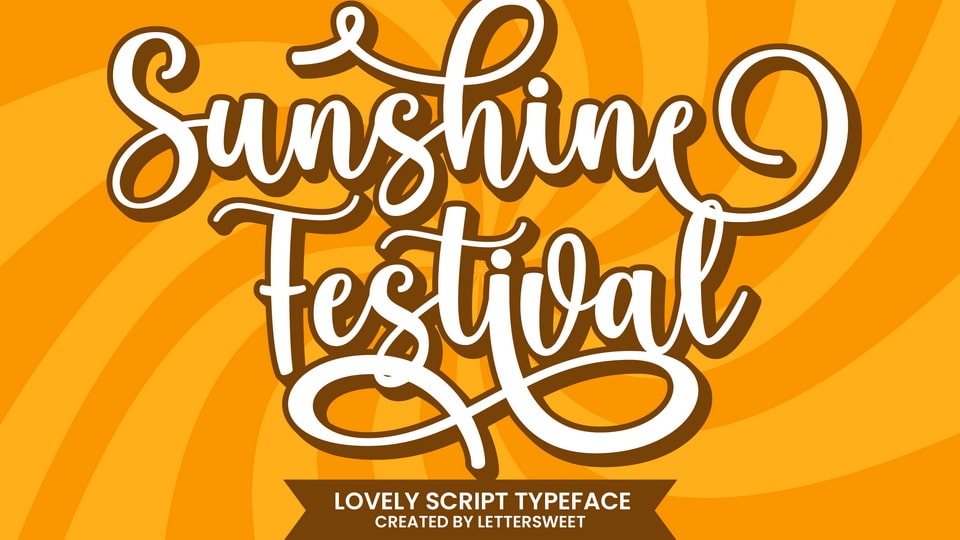
Download Sunshine Festival font, a beautiful and romantic script typeface. It looks stunning on wedding invitations, thank you cards, quotes, greeting cards, logos, business cards, and every other design which needs a lovely handwritten touch.